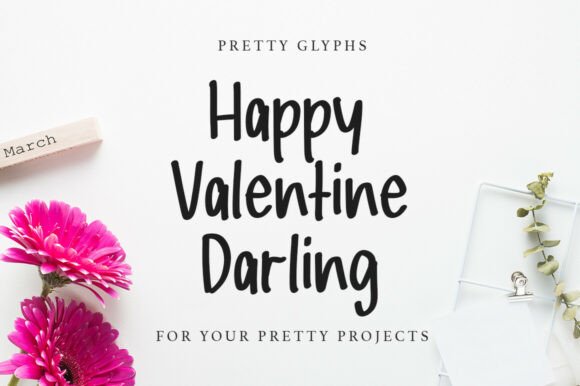
Introducing Brushy Bloom Font: Elevate Your Designs with a Hand-Painted Touch
Are you tired of using the same old fonts that lack personality and flair? Look no further than Brushy Bloom Font, a bold and expressive typeface that’s sure to take your designs to the next level. This stunning handwritten brush font is crafted with natural brush strokes and organic textures, giving your work an authentic hand-painted feel that’s both modern and playful.
What Makes Brushy Bloom Font So Special?
Brushy Bloom Font is more than just a font – it’s an experience. Each letter is carefully crafted to flow freely, giving your designs a sense of movement and energy. The natural brush strokes and organic textures add a touch of warmth and character, making your work stand out from the crowd. Whether you’re a designer, crafter, or DIY enthusiast, this font is perfect for anyone who wants to add a personal touch to their projects.
The Perfect Font for Creators
Brushy Bloom Font is designed with creators in mind. Whether you’re working on a logo, branding project, or social media post, this font is sure to make a statement. The bold and expressive letters are perfect for grabbing attention and adding a touch of personality to your work. Plus, the hand-painted feel gives your designs a unique and authentic look that’s sure to resonate with your audience.
Ideal Uses for Brushy Bloom Font
So, what can you use Brushy Bloom Font for? The possibilities are endless! Here are some ideas to get you started:
- Logos & Branding: Create a bold and memorable logo that stands out from the crowd.
- Quotes & Social Media Posts: Add a touch of personality to your social media posts and quotes with this eye-catching font.
- T-Shirts & Apparel Designs: Create unique and stylish apparel designs that are sure to turn heads.
- Invitations & Greeting Cards: Add a personal touch to your invitations and greeting cards with this beautiful handwritten font.
- Posters, Packaging & Stickers: Use Brushy Bloom Font to create eye-catching posters, packaging, and stickers that grab attention.
- Cricut, Silhouette & Cutting Machines: Perfect for crafters who love to work with cutting machines, this font is sure to add a touch of personality to your projects.
Why Choose Brushy Bloom Font?
So, why choose Brushy Bloom Font over other fonts? Here are just a few reasons:
- Unique and Authentic: This font offers a unique and authentic hand-painted feel that’s sure to make your designs stand out.
- Modern and Playful: The modern and playful personality of this font makes it perfect for creators who want to add a touch of whimsy to their work.
- Versatile: Brushy Bloom Font is versatile and can be used for a wide range of projects, from logos and branding to social media posts and apparel designs.
In conclusion, Brushy Bloom Font is a must-have for any creator who wants to add a touch of personality and whimsy to their designs. With its unique and authentic hand-painted feel, modern and playful personality, and versatility, this font is sure to take your work to the next level. So why wait? Download Brushy Bloom Font today and start creating stunning designs that stand out from the crowd!